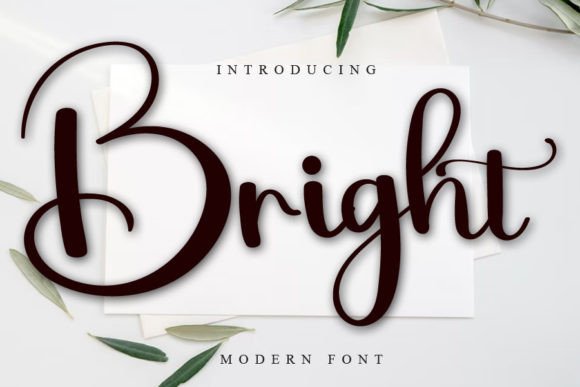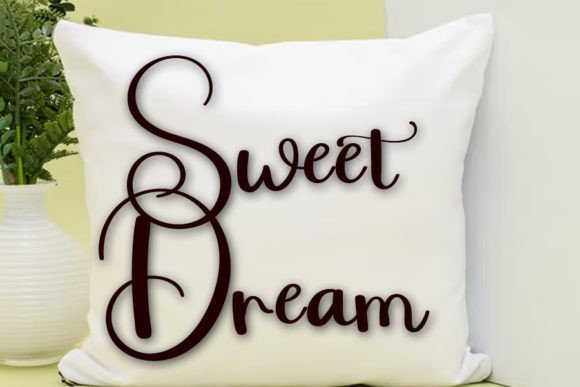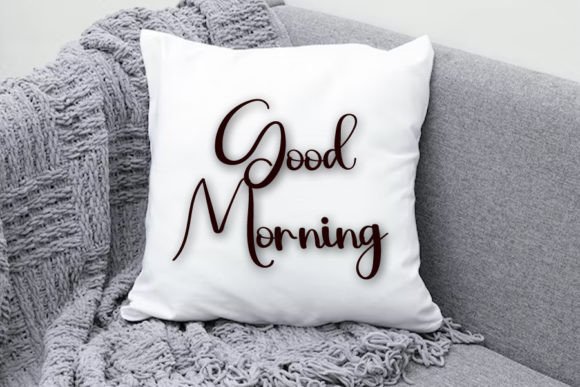
About Bright Font
Bright is a vibrant and youthful handwritten script font that injects a sense of joy and freshness into your designs. This versatile script font offers a wide range of applications, making it suitable for everything from greeting cards to headlines. It’s guaranteed to infuse a romantic and delightful atmosphere into your next creative project.
With its playful and lively vibe, Bright is a perfect choice for various design applications. Whether you’re crafting greeting cards, designing headlines, or working on any creative endeavor, this font brings a sense of romance and charm to your work.
In the world of greeting cards, Bright can enhance the emotional impact of your messages. Its handwritten script adds a personal and heartfelt touch, making your cards more engaging and memorable.
For headlines and titles, Bright introduces a fun and captivating style. Its youthful appeal grabs attention and sets the tone for a lively and dynamic design.
Bright’s versatility allows it to adapt to a wide range of design needs. Its ability to convey a sense of romance and playfulness makes it a valuable asset for various creative projects.
In summary, Bright is a fun and fresh handwritten script font that promises to bring joy and a romantic feel to your designs. Its adaptability and ability to infuse a sense of playfulness into your work make it a valuable tool for designers and creatives looking to create engaging and delightful projects.